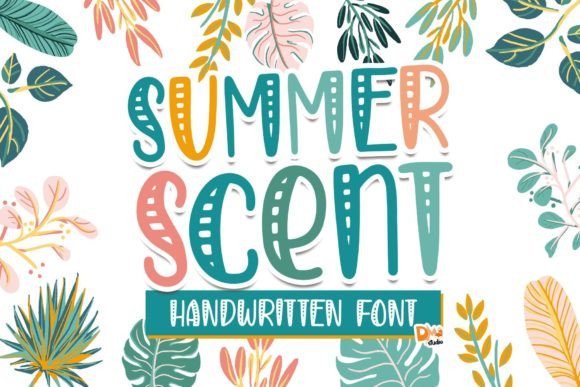
Journey into a World of Enchanting Creativity with Summer Scent: The Font That Will Ignite Your Design Passion.
Unleash the captivating allure of Summer Scent, an enthralling handwritten font that will transform your designs into masterpieces of happiness and joy. With its cheerful strokes and playful curves, Summer Scent is the ultimate font for those seeking a dash of delight and whimsy in their creations.
Let your imagination soar as you explore the endless possibilities of this enchanting font. Perfect for branding, packaging, logotype, headlines, and wedding invitations, Summer Scent adds a touch of magic to every project. Create eye-catching logos that radiate warmth and personality, design packaging that exudes charm and sophistication, and craft wedding invitations that are as unique and special as the love they celebrate.
Step into a realm of artistic freedom as Summer Scent takes you on a creative adventure, leaving a trail of delight and wonder in its wake. Whether you're a seasoned designer or just starting your creative journey, this remarkable font will elevate your designs to new heights.
Don't miss this chance to embrace the transformative power of Summer Scent and watch your designs blossom into vibrant expressions of joy and inspiration. Embrace the beauty of hand-lettering and embark on a creative expedition like no other.